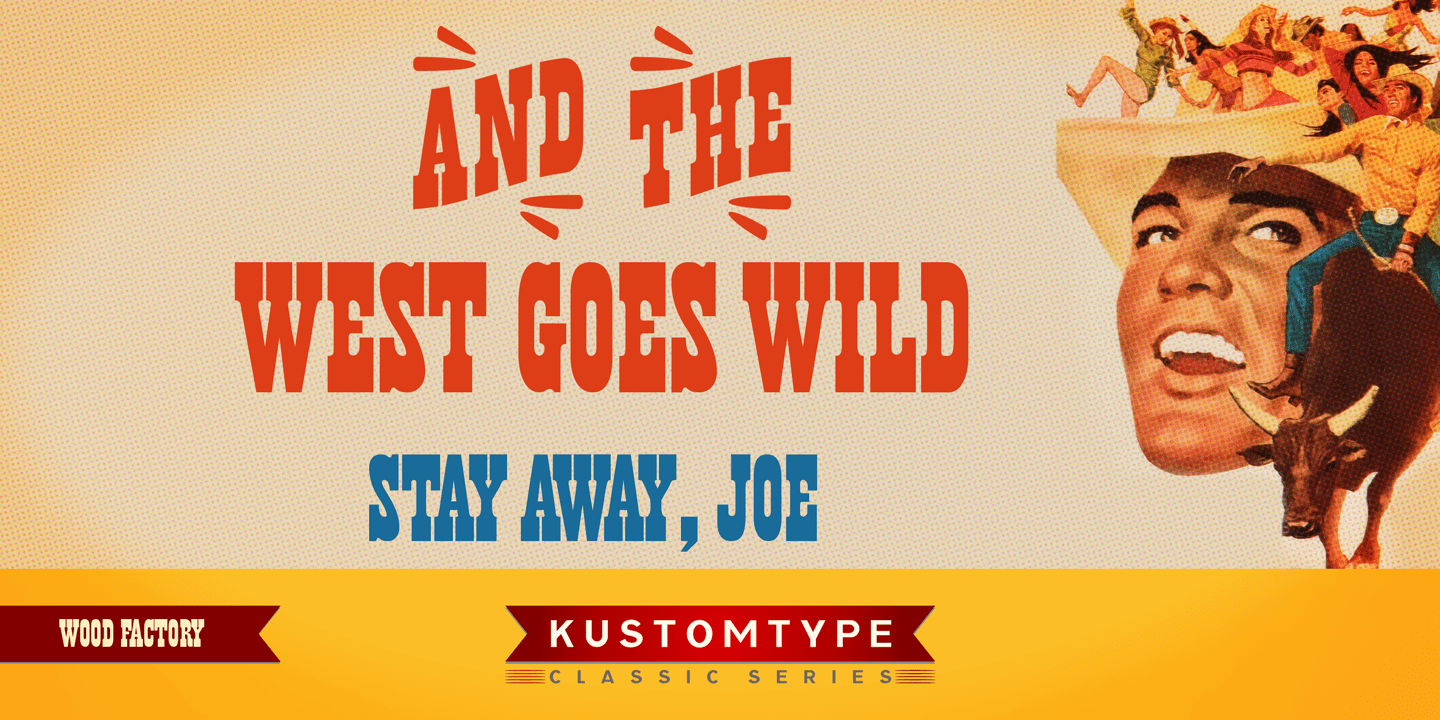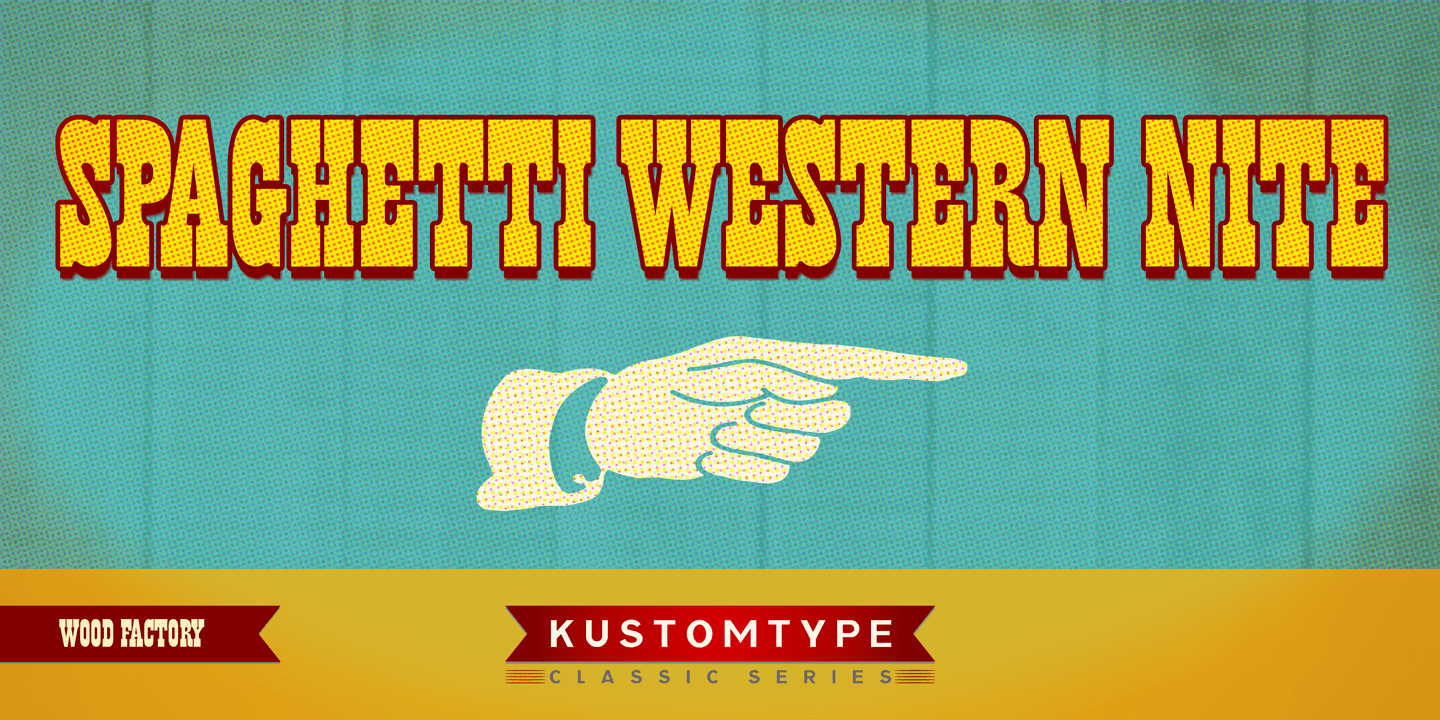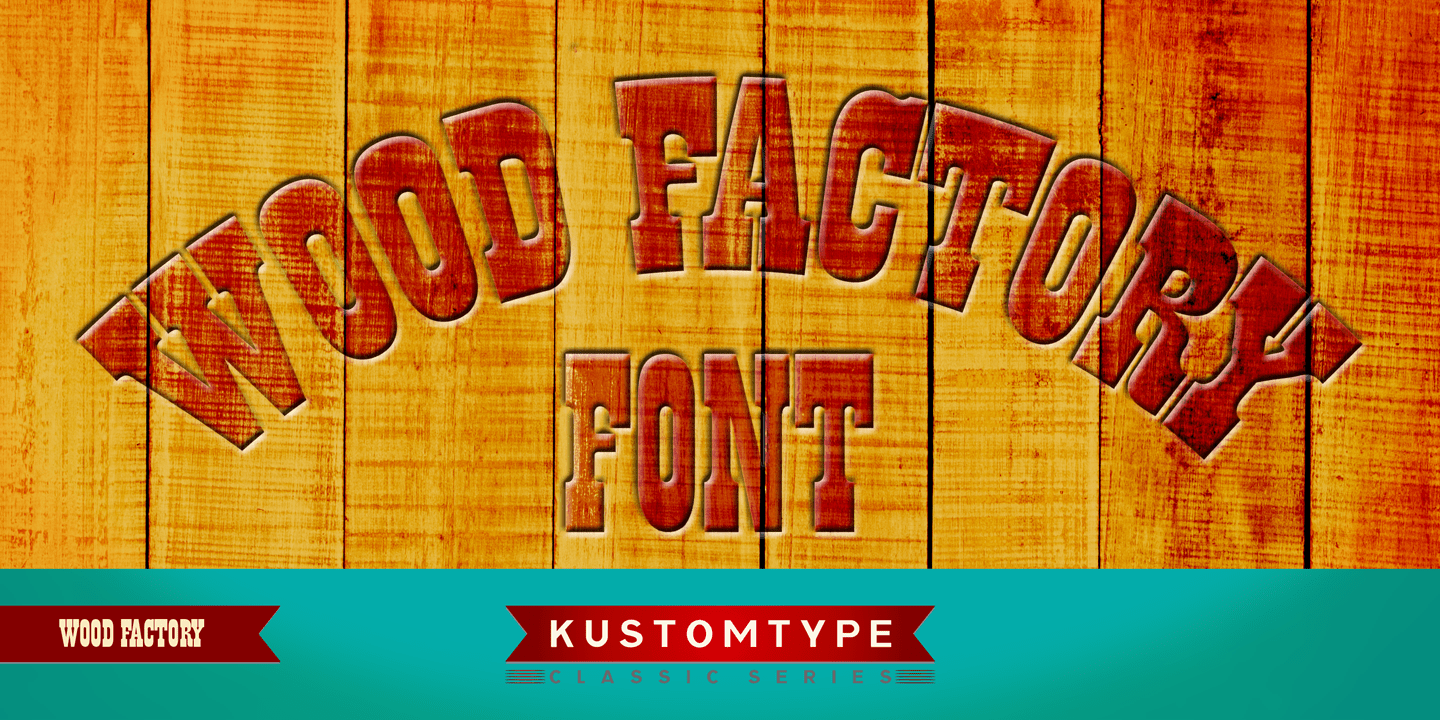
Wood Factory
Font Family by Kustomtype
Wood Factory is a western styled typeface created by Kustomtype. Wood Factory is an old Wood Type favorite. It was designed specifically for display, headlines and titles where a Tuscan look is desired.